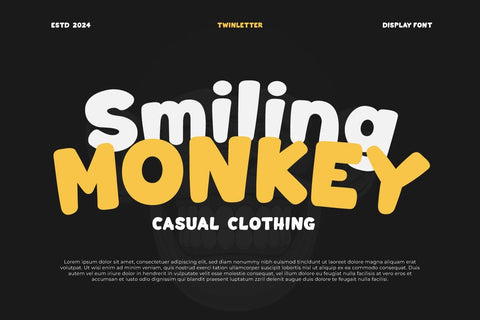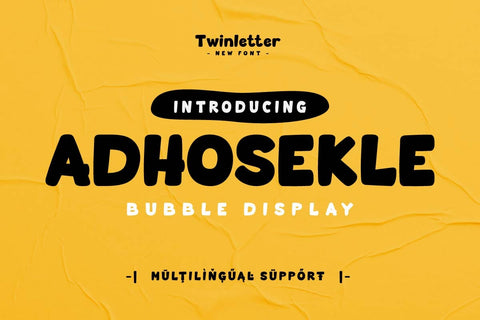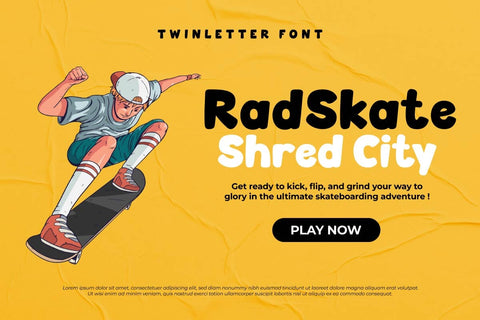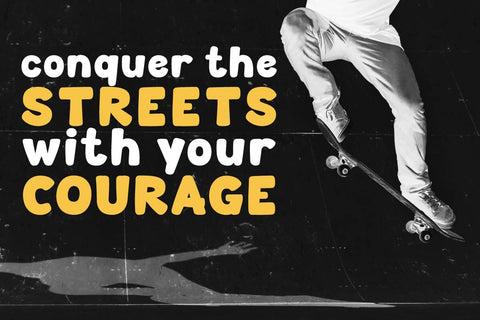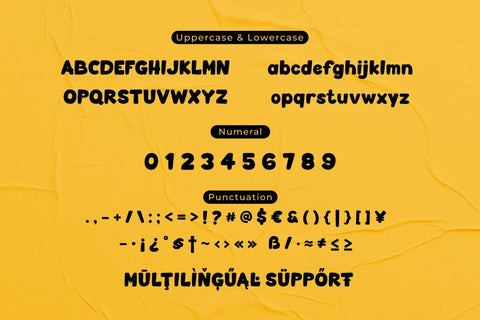
Adhosekle - Playful Display Font
Welcome to the realm of joy and freedom of expression with Adhosekle, a playful display font that sparks the imagination. With each character symbolizing cheerfulness and joy, Adhosekle is the perfect choice to enliven any of your design projects. Whether it's posters, greeting cards, or promotional materials, this font brings a delightful spirit and boundless fun to every detail. Let Adhosekle be your faithful companion on your journey to create colorful and cheerful artwork.